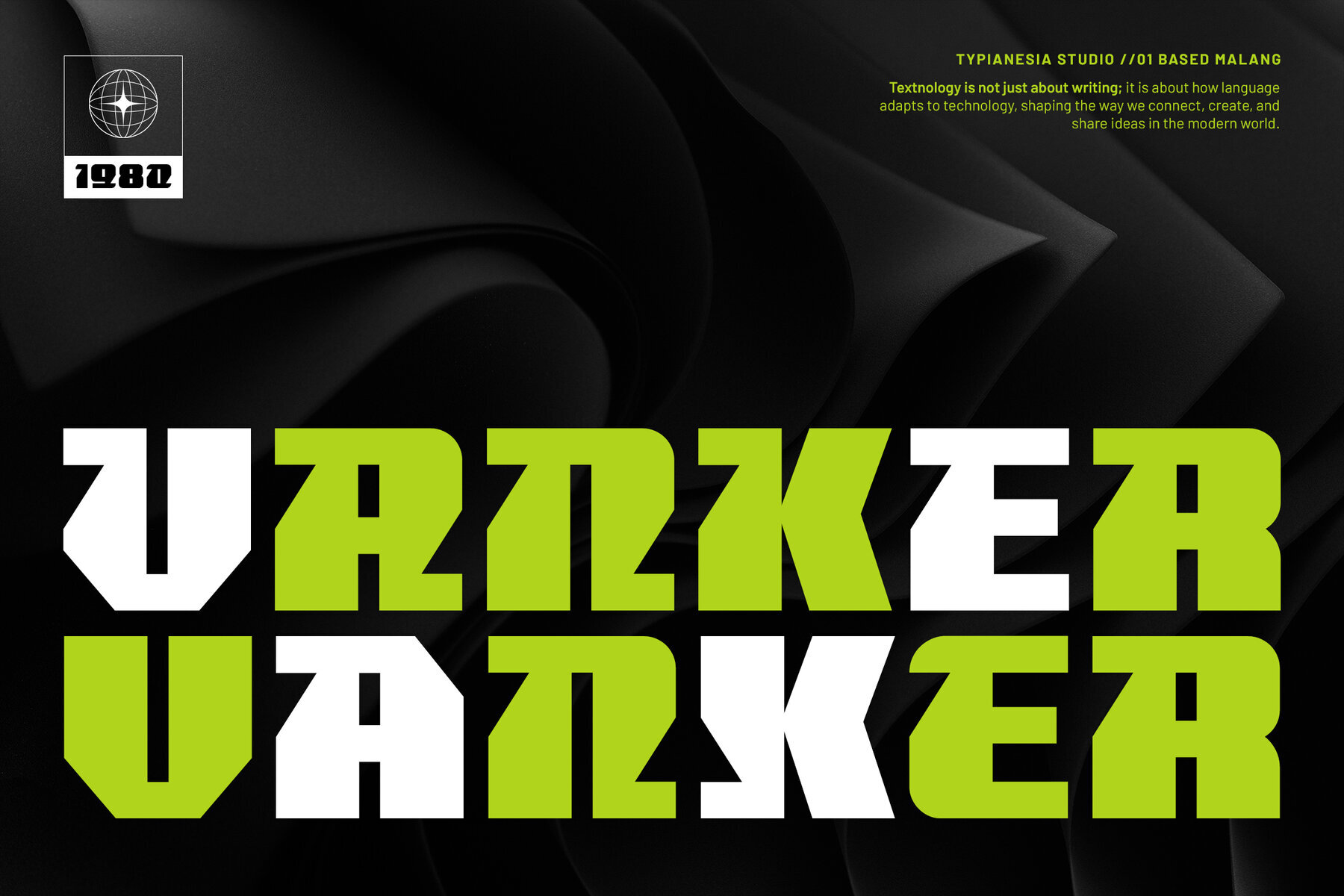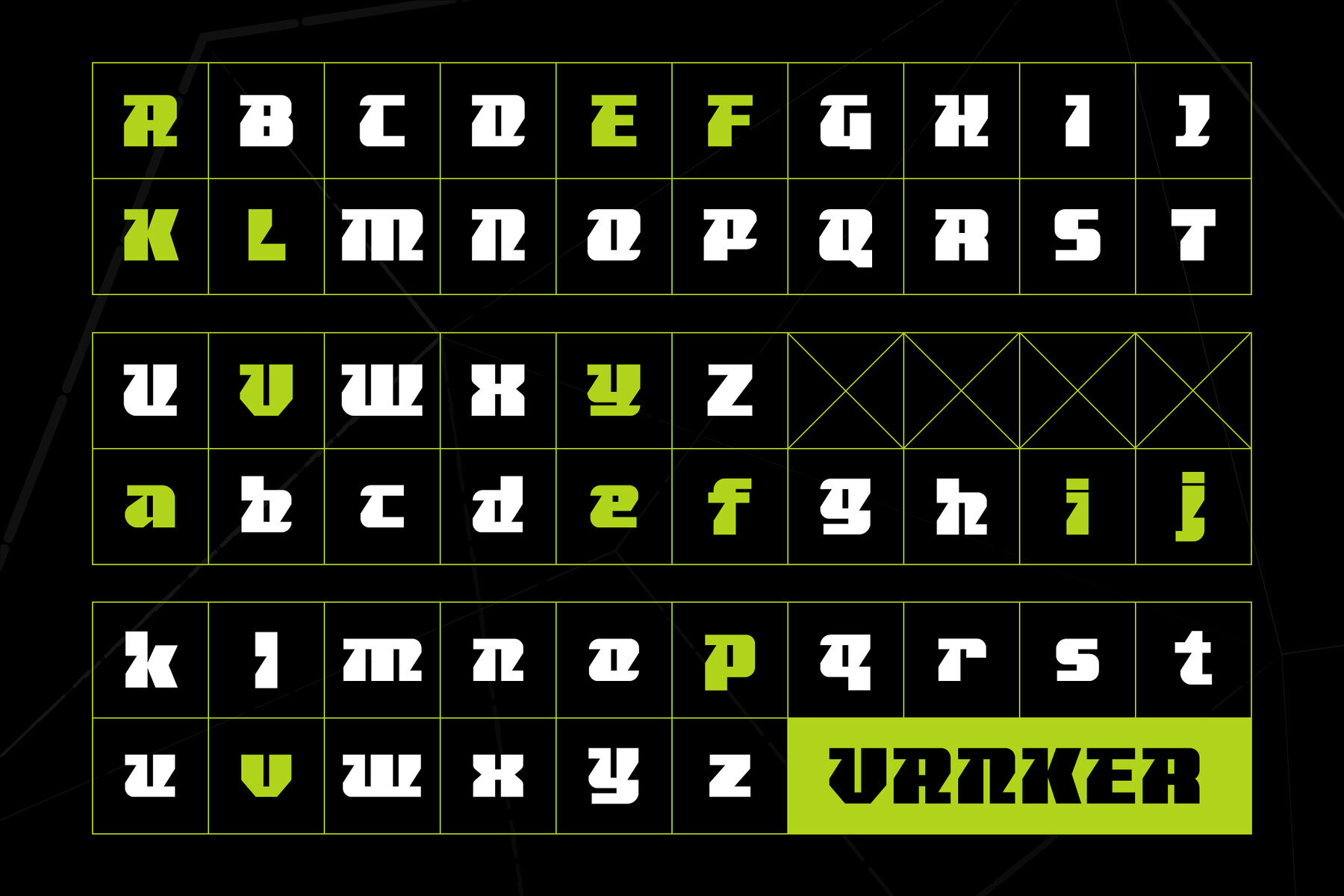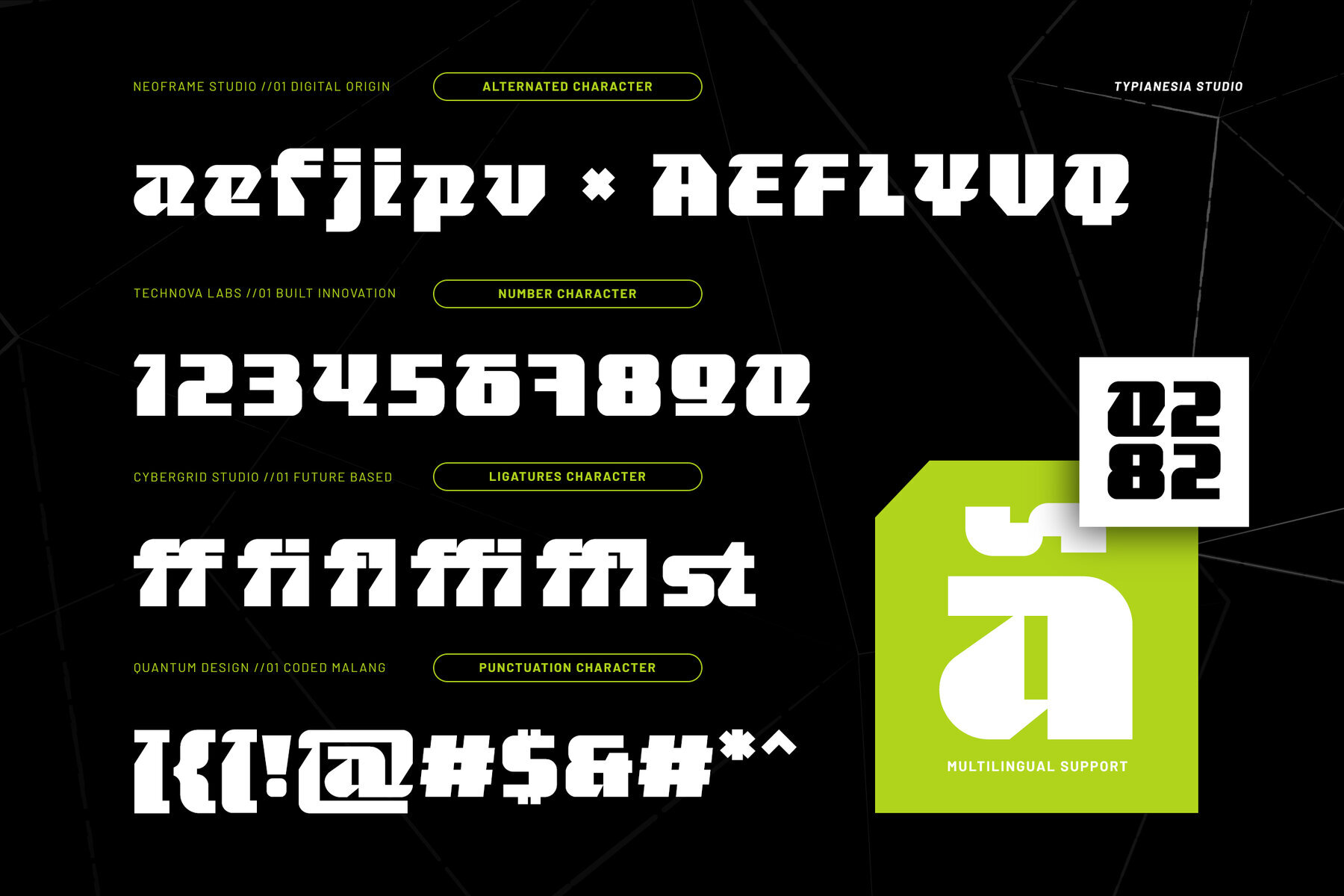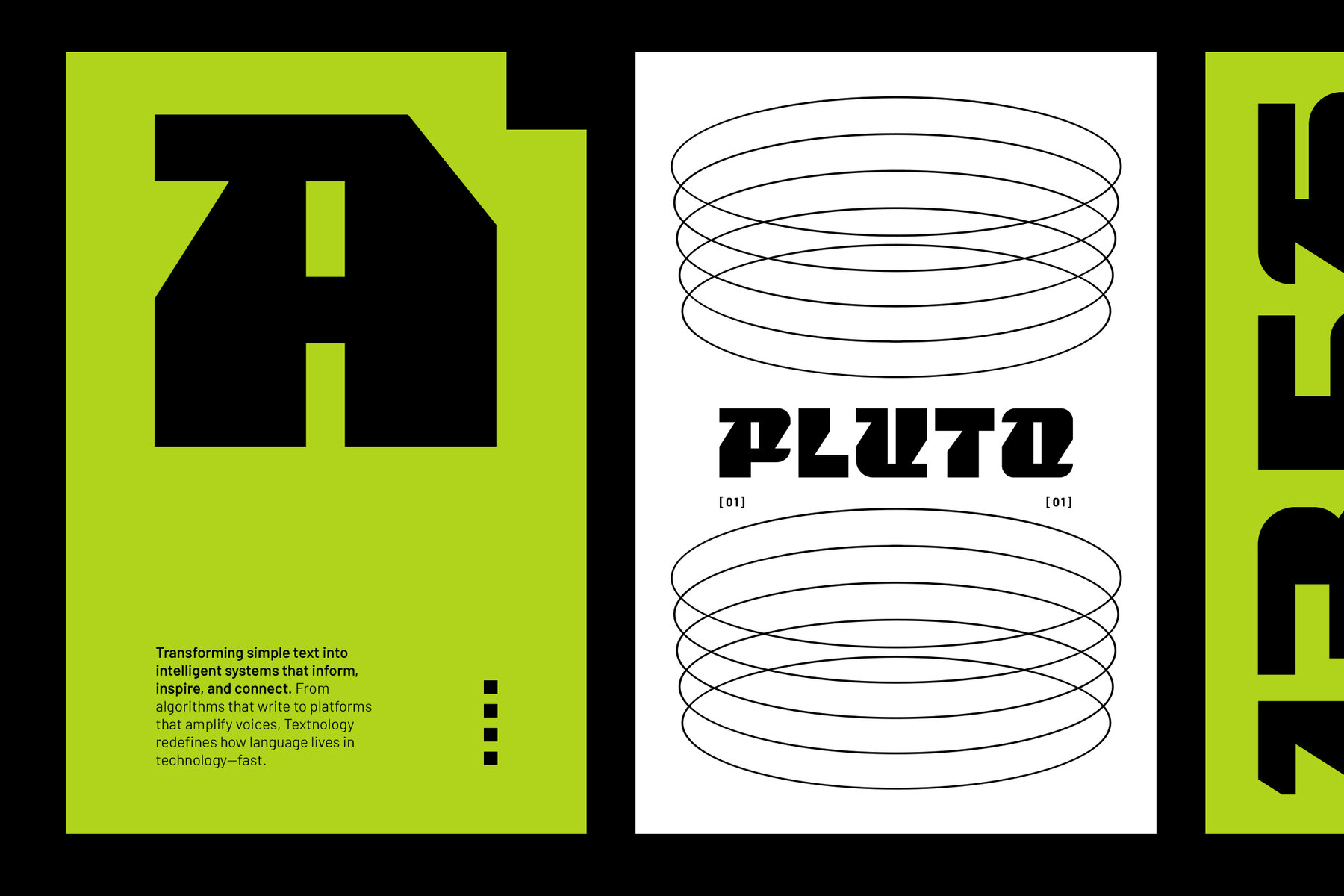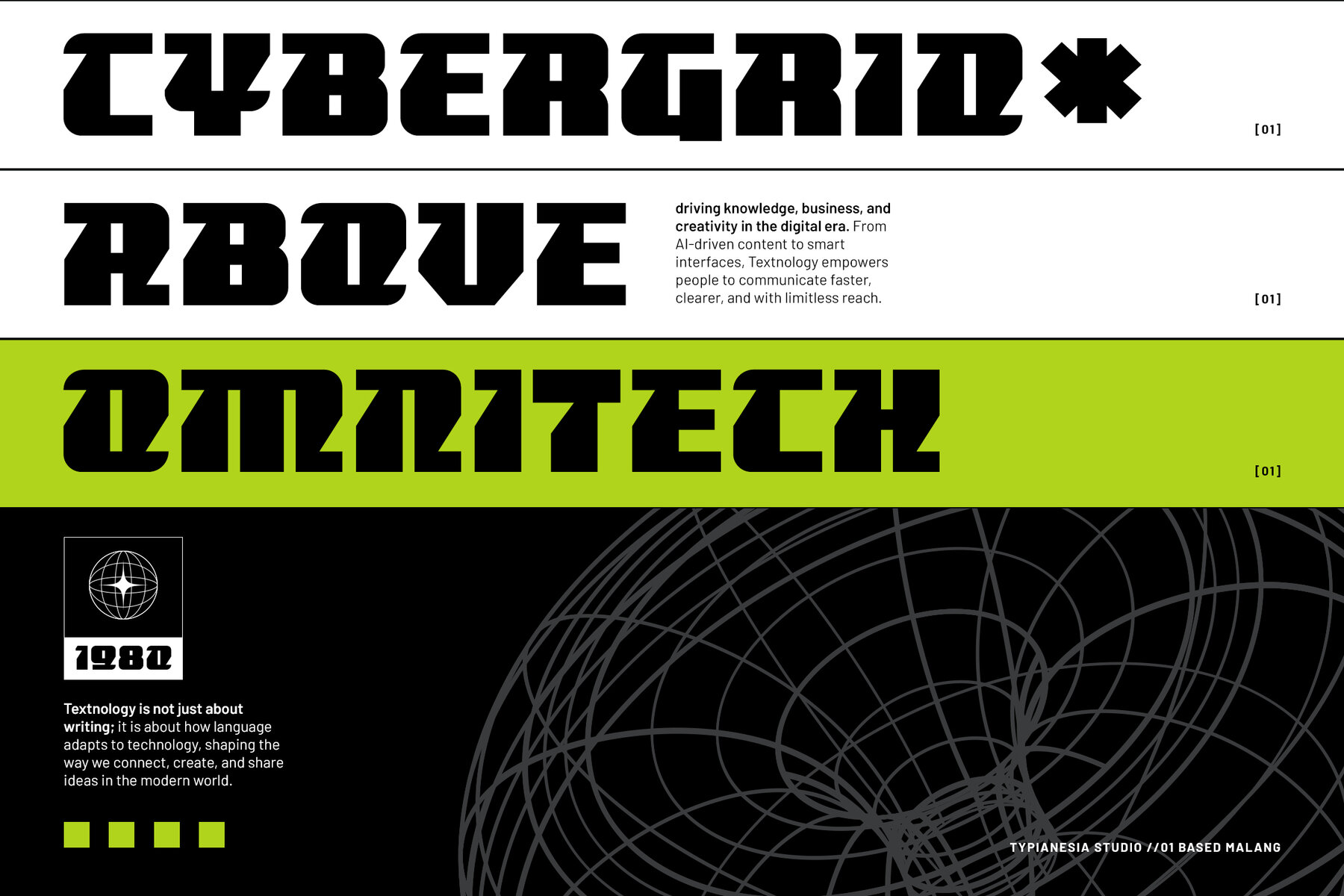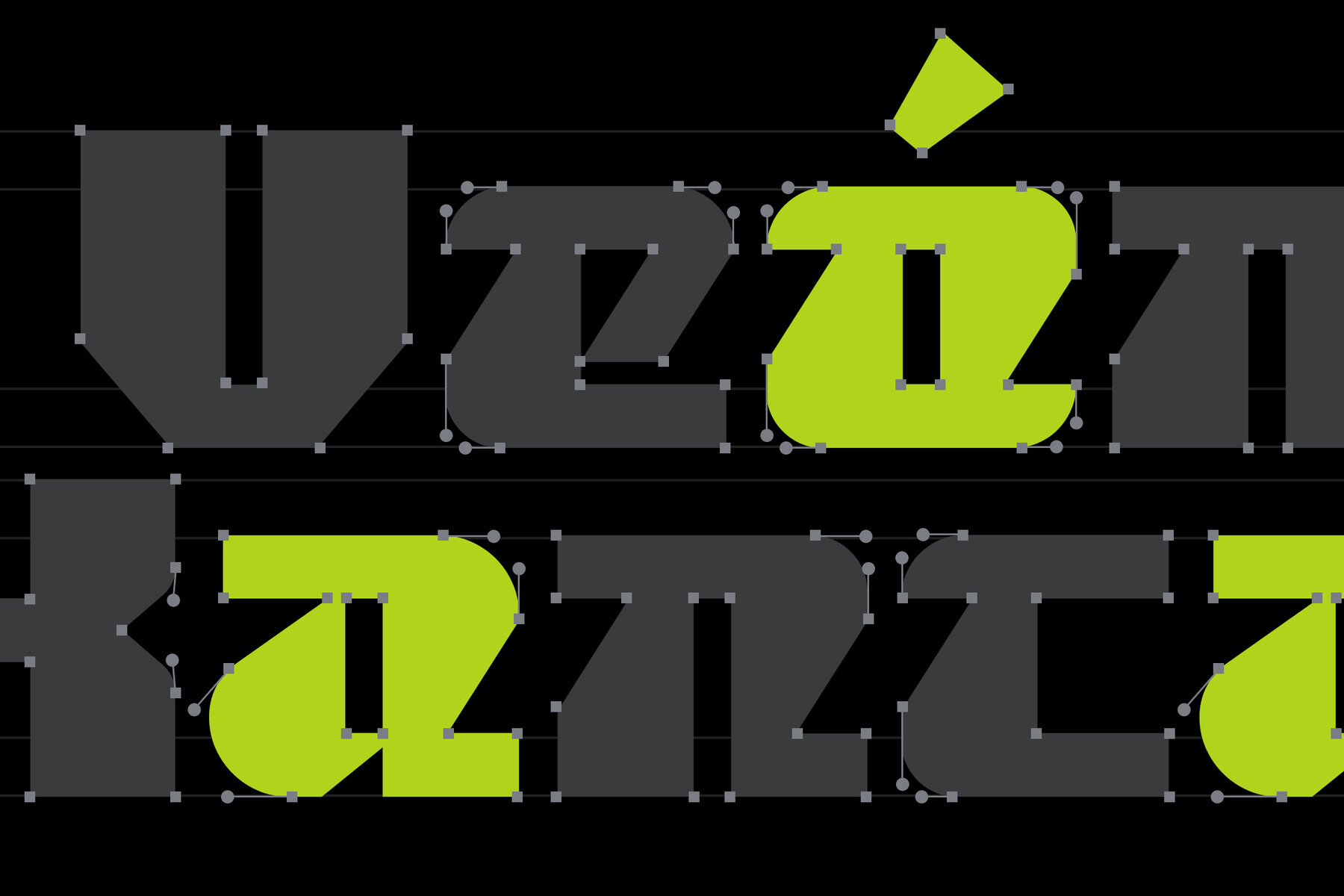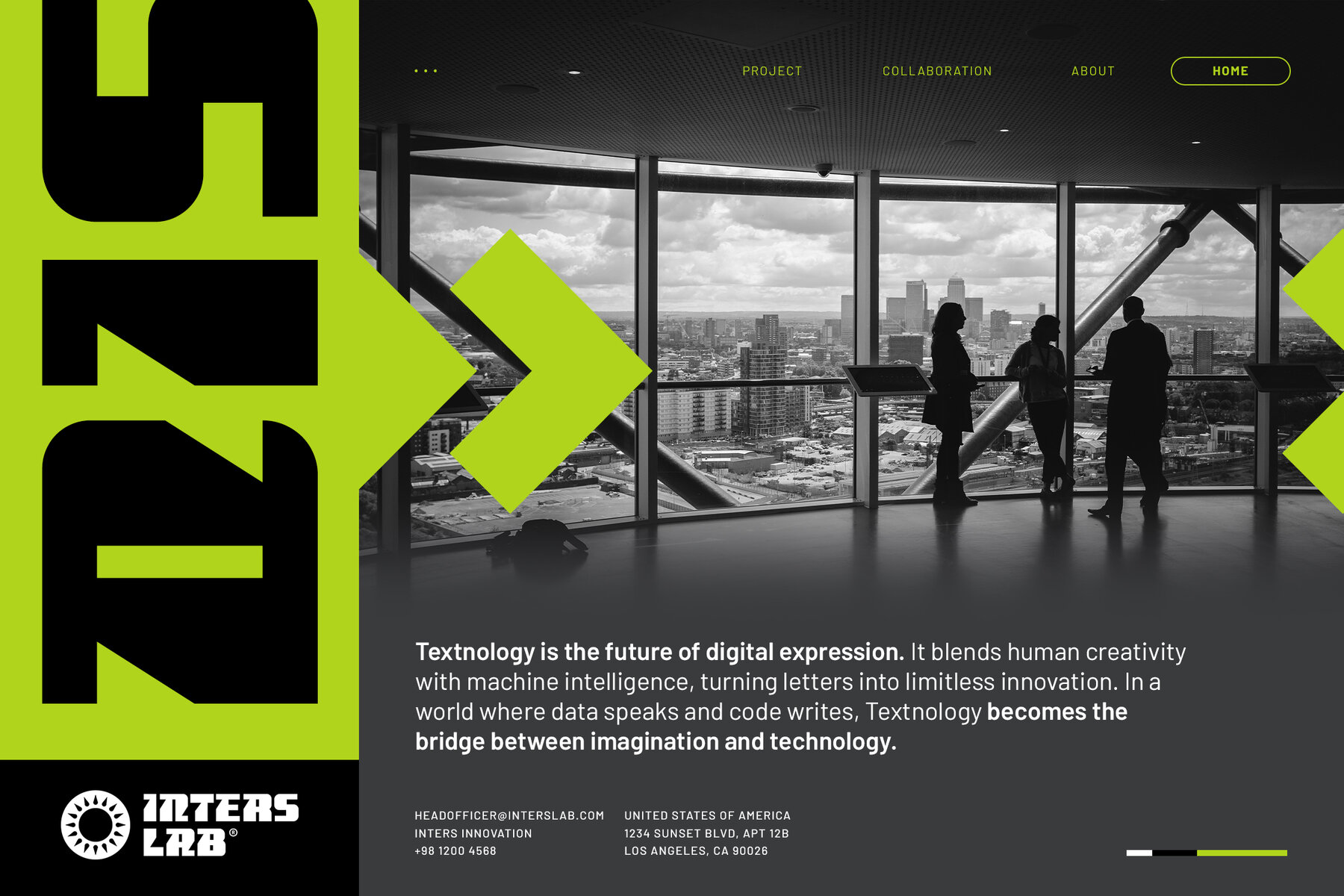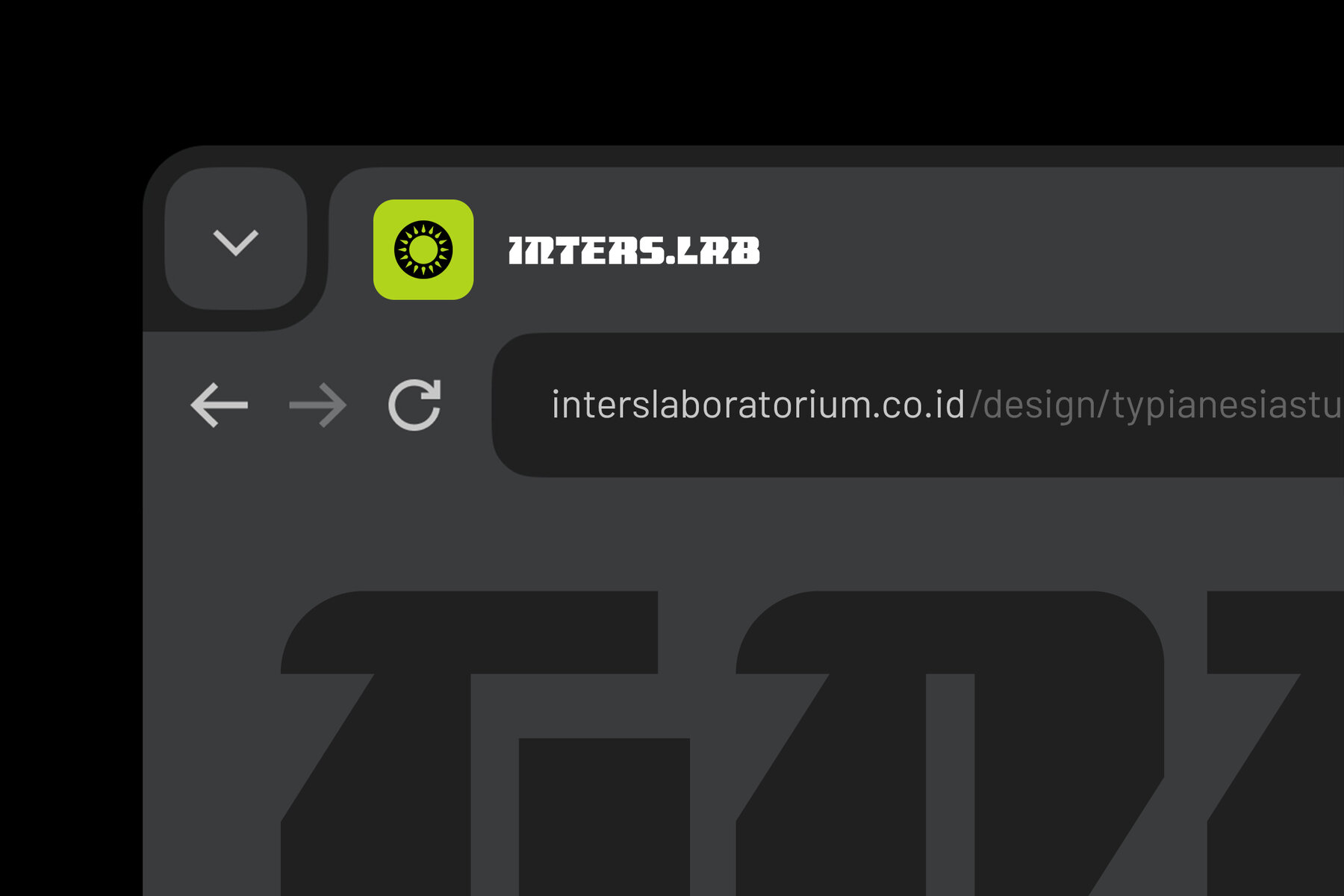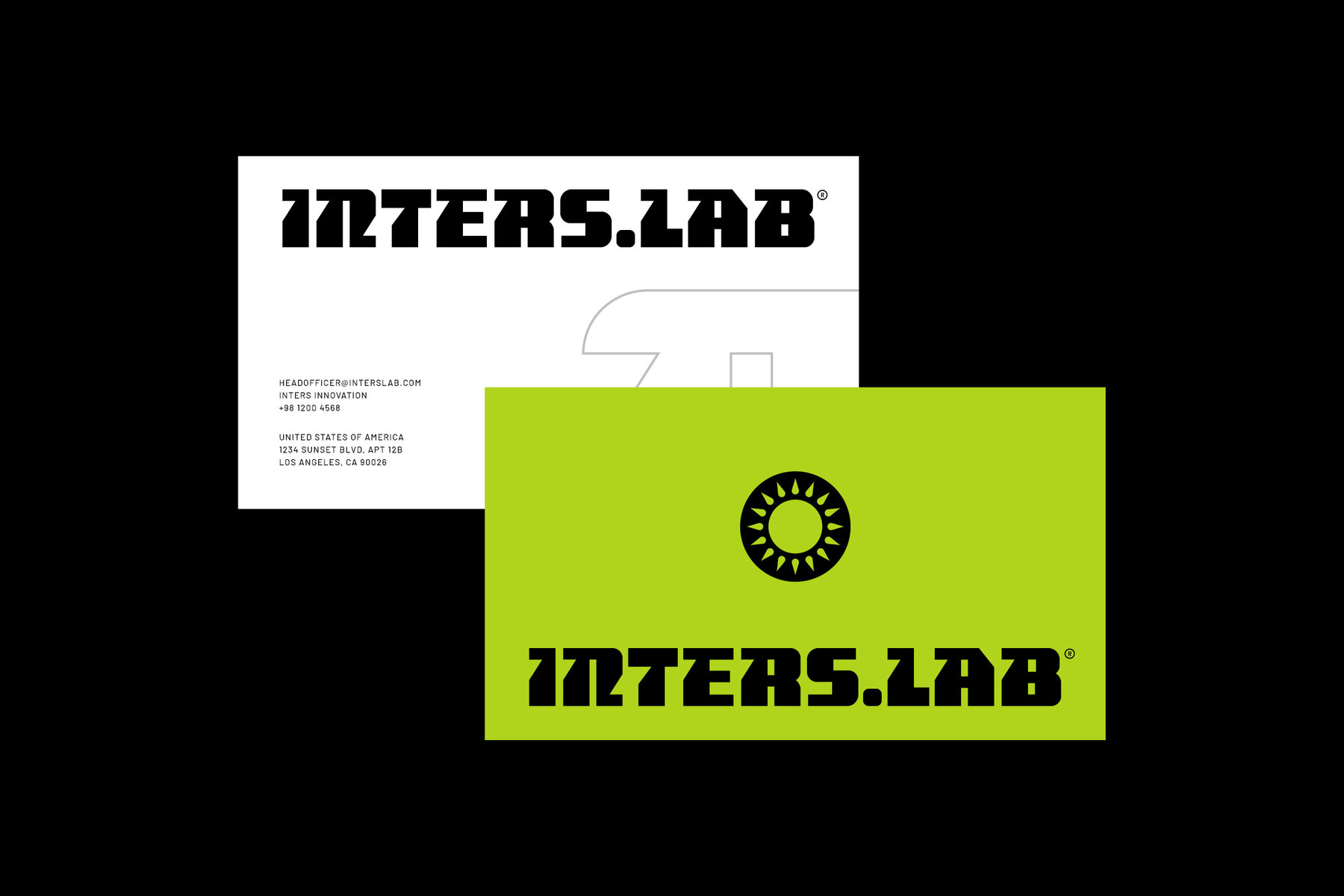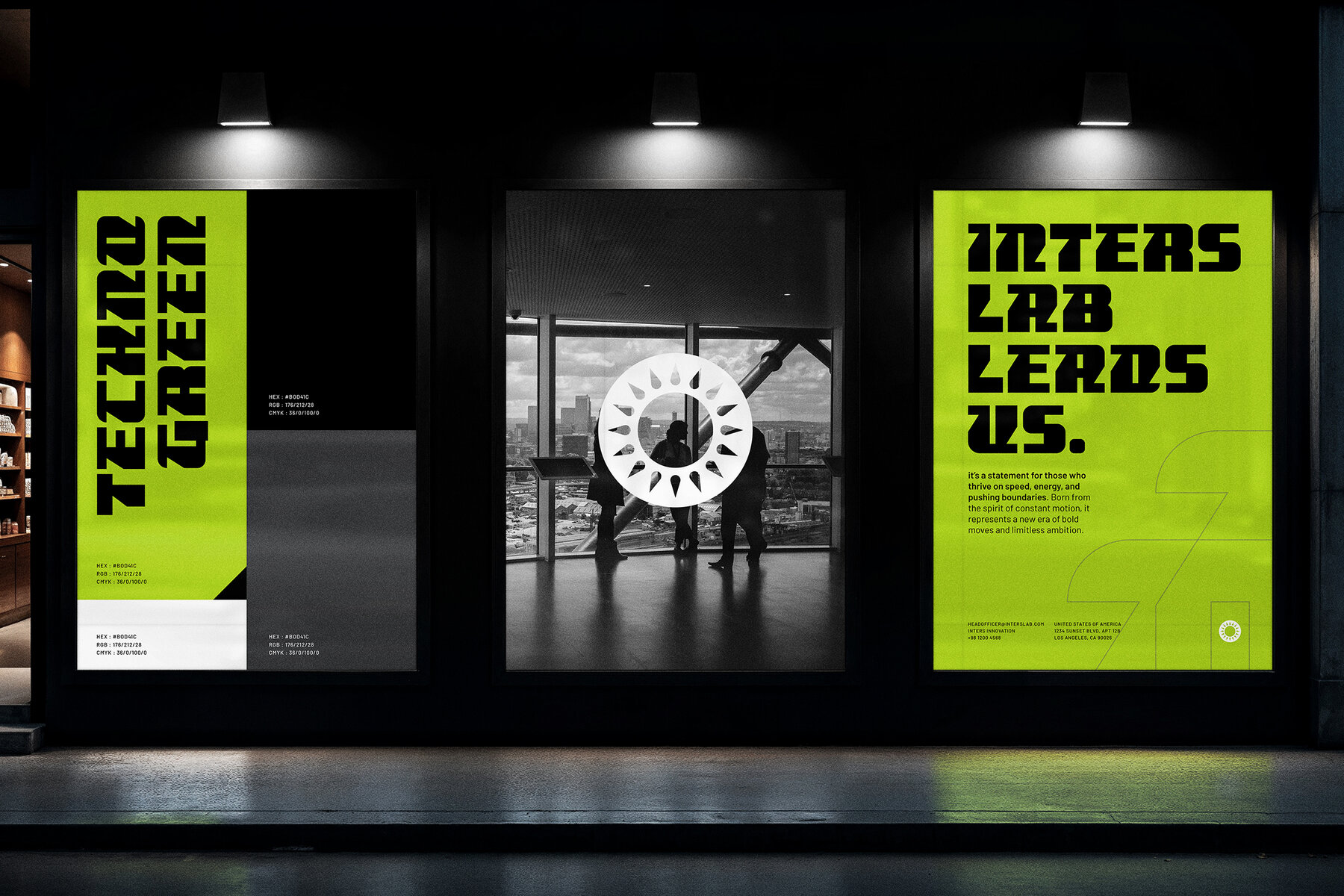
Vanker Font
Vanker Regular
Vanker brings a bold, technological edge to digital design, perfectly suited for high-impact titles and digital applications. Its sharp geometric lines and strong forms channel the dynamic feel of technology and the expansive world of science fiction. Vanker stands out in any setting where a forward-thinking, futuristic presence is needed. This typeface is an excellent choice for game titles, sci-fi themed movie posters, tech industry branding, and bold advertising projects. The clean, distinct letter shapes command attention, allowing your design to dominate both digital and print environments. Vanker provides a powerful foundation for creating logos and headlines that leave a lasting impression.Vanker: Modern Futuristic Sci-Fi Game Font
Ideal for